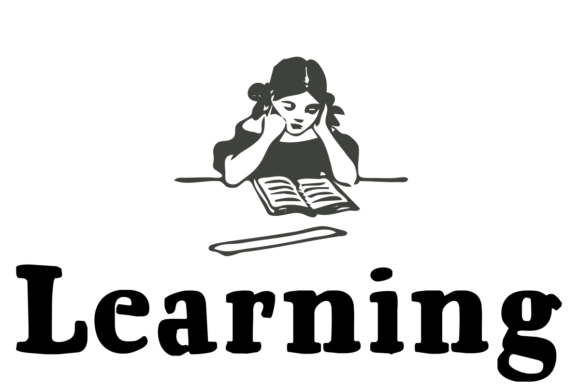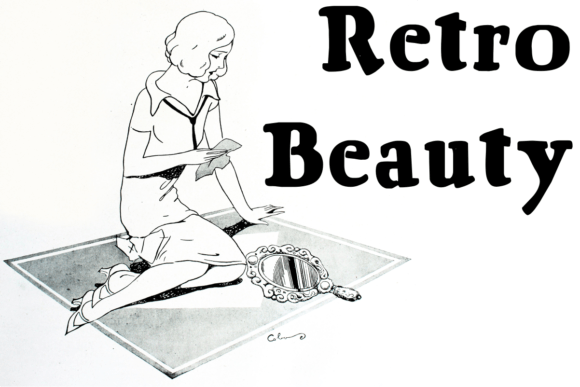
Introduction to Metropolica Font
As a designer, there’s nothing quite like the thrill of stumbling upon the perfect font for a creative project. The moment you see it, you know – this is the one that will bring your vision to life. For me, that moment came when I discovered the Metropolica Font. Its elegant serifs and vintage style transport me to a bygone era, instantly evoking a sense of nostalgia and charm.
What makes Metropolica Font so special is its timeless appeal. Whether you’re designing a poster, invitation, logo, or branding materials, this classic font adds a touch of sophistication and elegance that’s hard to resist. And the best part? It’s a high-quality design resource that’s free to download, making it a valuable addition to any designer’s toolkit.
With a transparent background and versatile style, Metropolica Font is a must-have for any designer looking to add a touch of old-world charm to their next project. In this article, we’ll delve deeper into the world of Metropolica Font and explore why it’s a design resource you won’t want to miss.
Key Features of Metropolica Font
- Unique, modern design with a transparent background, making it perfect for creative projects that require a clean and minimalist look.
- High-quality, professional font that’s ideal for use in design resources, such as logos, brochures, and business cards.
- Includes a range of characters, including uppercase and lowercase letters, numbers, and punctuation marks, making it a versatile design resource.
- Designed at 72 dpi resolution, suitable for use in digital design projects, such as website headers, social media graphics, and advertising materials.
- Perfect for creative professionals, students, and hobbyists looking for a high-quality, free font to enhance their design projects.
Honest Review: Metropolica Font
I recently came across the Metropolica Font, and I was excited to give it a try for my latest creative project. The first thing that caught my attention was its sleek and modern design, perfect for any design resource looking to add a touch of sophistication to their work.
Here are some of the things that work well with the Metropolica Font:
- ✨ Transparent background, allowing for seamless integration with any design
- ⚠️ Limited font styles available, which may not be suitable for projects requiring a wide range of font options
- ⚠️ Not as versatile as some other fonts, making it less suitable for projects requiring bold or italic text
Overall, I would say that the Metropolica Font is a great option for designers looking for a modern and sleek font for their creative projects. While it has its limitations, its high-quality design and free download make it a valuable design resource. I would definitely consider using it again in the future.
Introduction to Metropolica Font
Metropolica Font is a high-quality design resource ideal for various creative projects. This font is available for free download, making it a valuable asset for designers and artists.
Tips for Getting the Most Out of Metropolica Font
To get the most out of Metropolica Font, use it with a transparent background to create a clean and modern design. Experiment with different font sizes and styles to add depth and interest to your project.
Metropolica Font is commonly used in various design projects, including:
- Print and digital marketing materials
Alternatives to Metropolica Font
Montserrat is a popular sans-serif font perfect for creative projects that require a modern and urban feel. It’s ideal for use in digital design, logos, and headings. With its transparent background and high-quality design, Montserrat is a great alternative to Metropolica Font. It’s available for free download and is widely supported by most operating systems.
Open Sans is a clean and elegant font that works well in a variety of design contexts, including creative projects and business applications. It’s highly legible and suitable for use in body text and headings. Open Sans offers a more rounded feel compared to Metropolica Font, making it a great option for designers who want a softer look. It’s a free download and is widely used in web design.
Lato is a modern sans-serif font that’s perfect for creative projects that require a high-quality design resource. It’s highly versatile and works well in a variety of contexts, including digital design, print, and web design. Lato offers a more refined feel compared to Metropolica Font, making it a great option for designers who want a sophisticated look. It’s available for free download and is widely supported by most operating systems.
Q: Does the Metropolica Font have a transparent background option?
Yes, the Metropolica Font features a transparent background option, making it ideal for use in designs that require a clear or see-through background. This is particularly useful for creating visually appealing graphics, logos, and other design elements that require a high level of customization and flexibility.